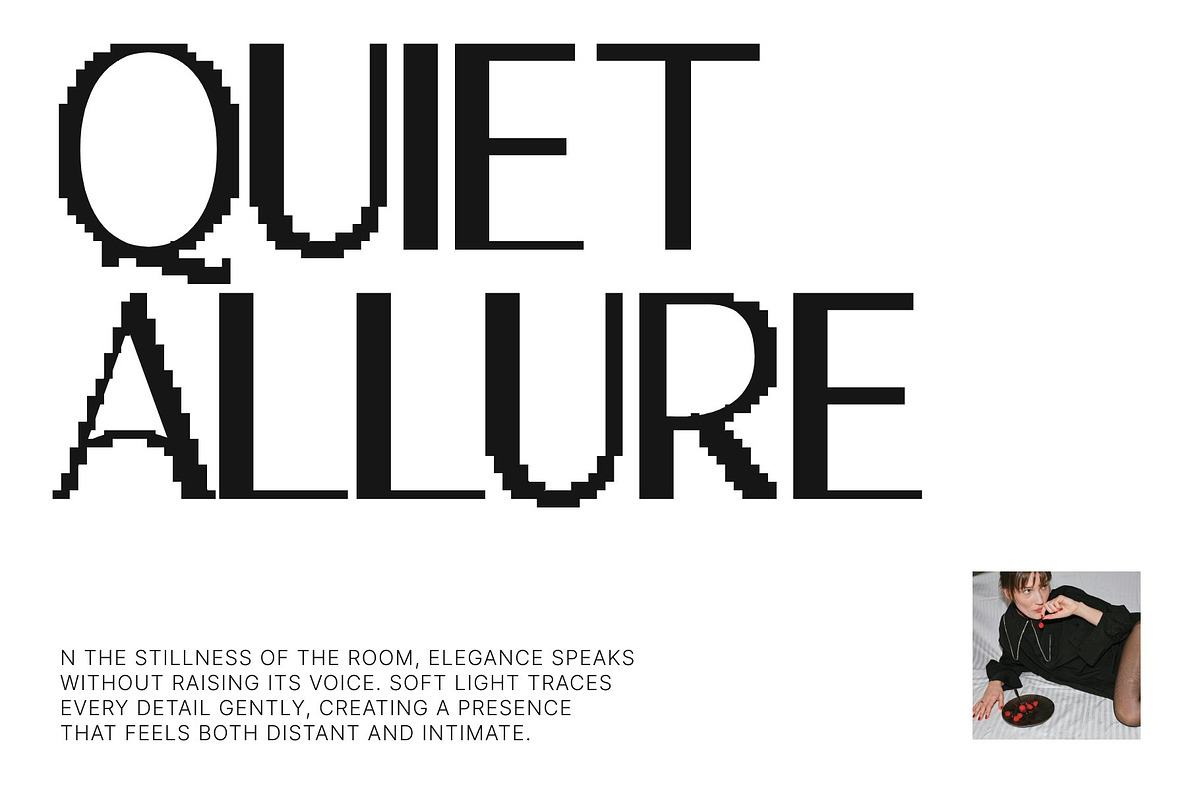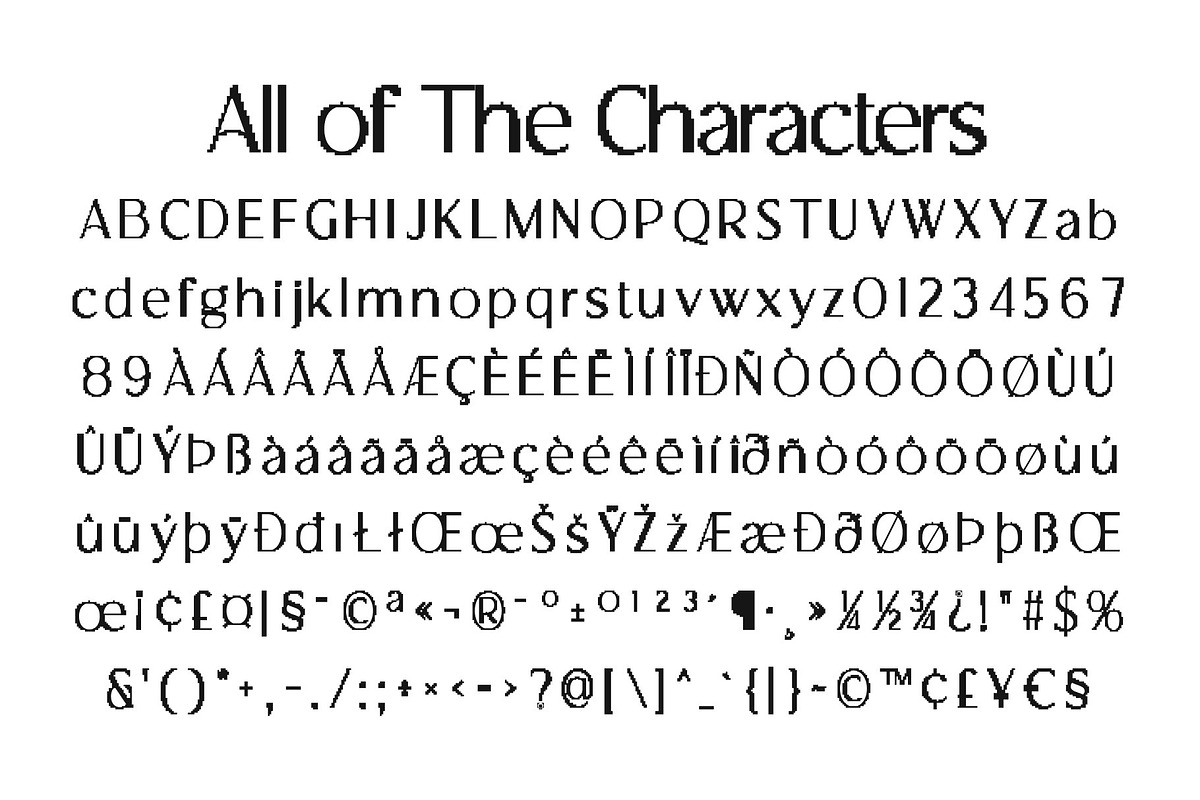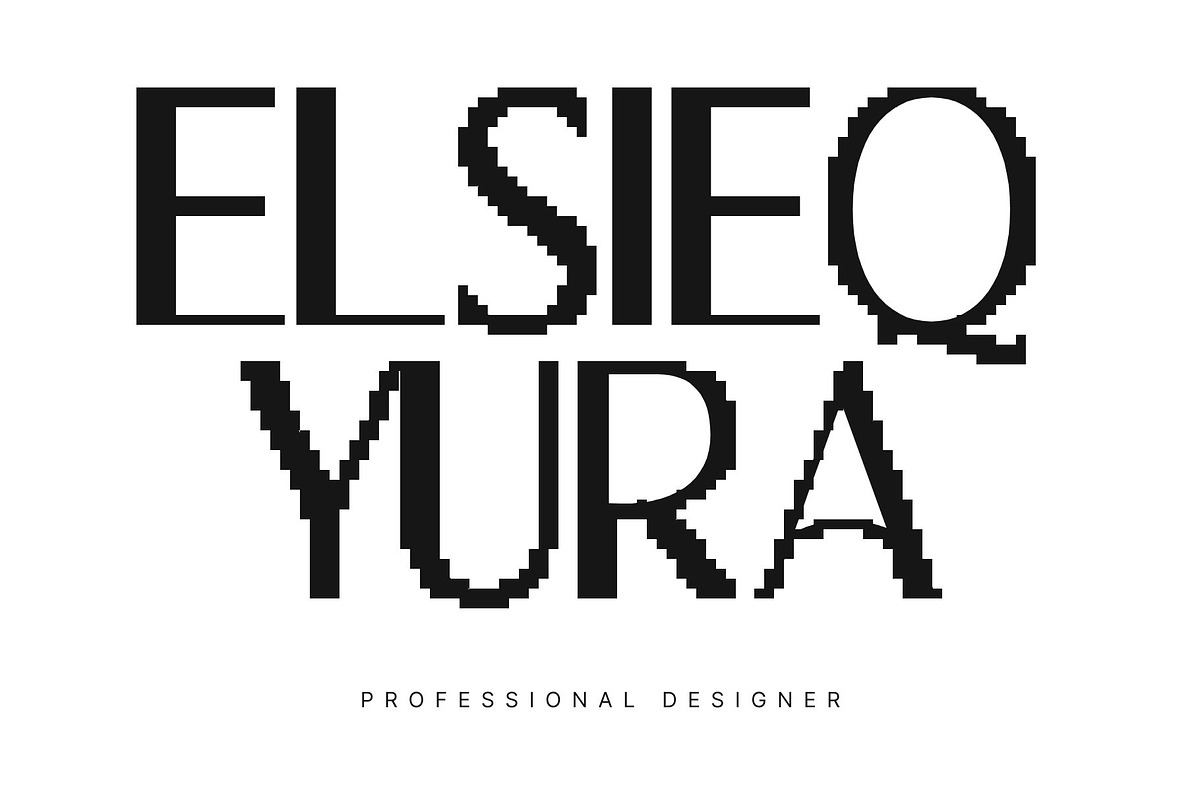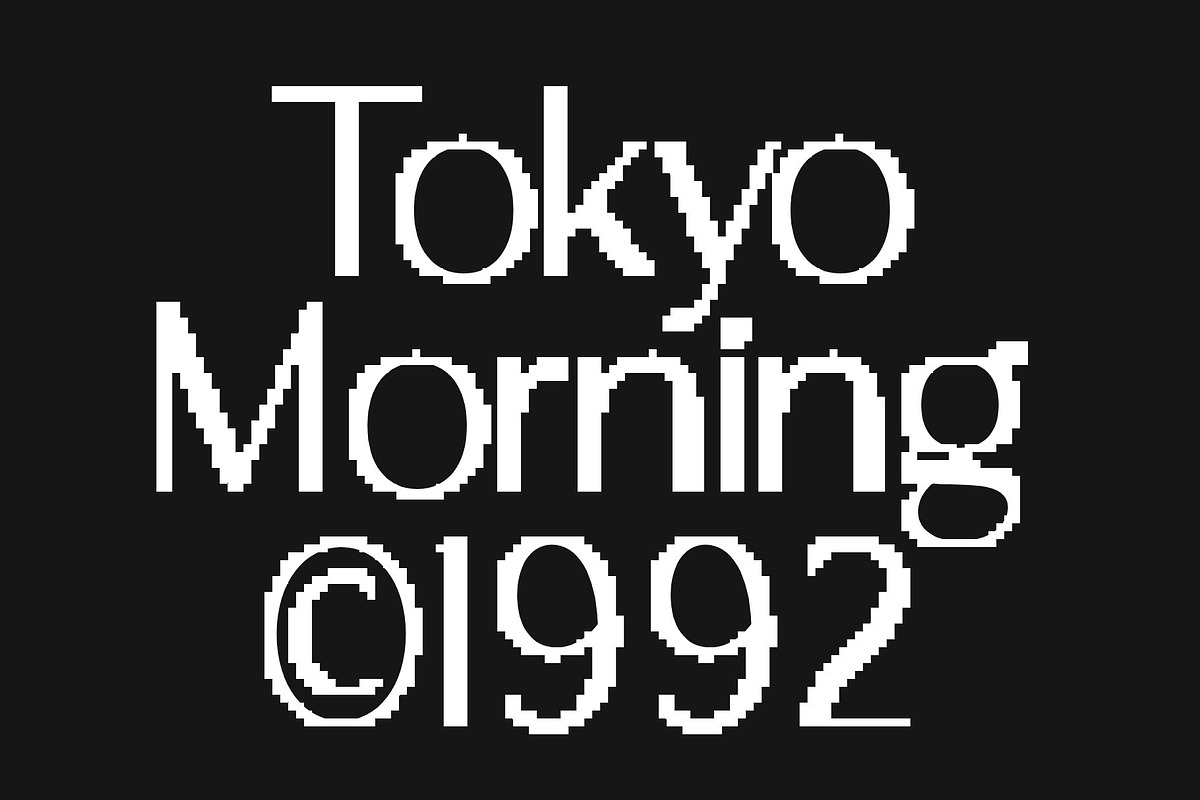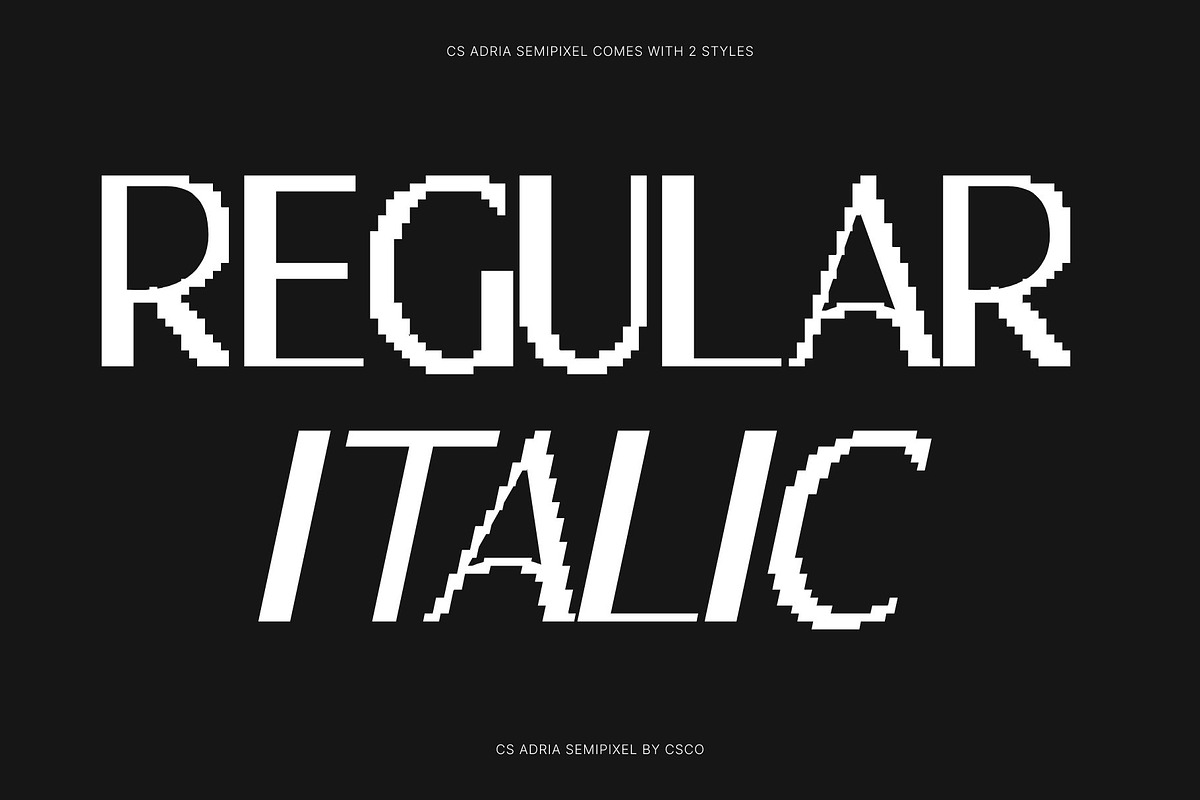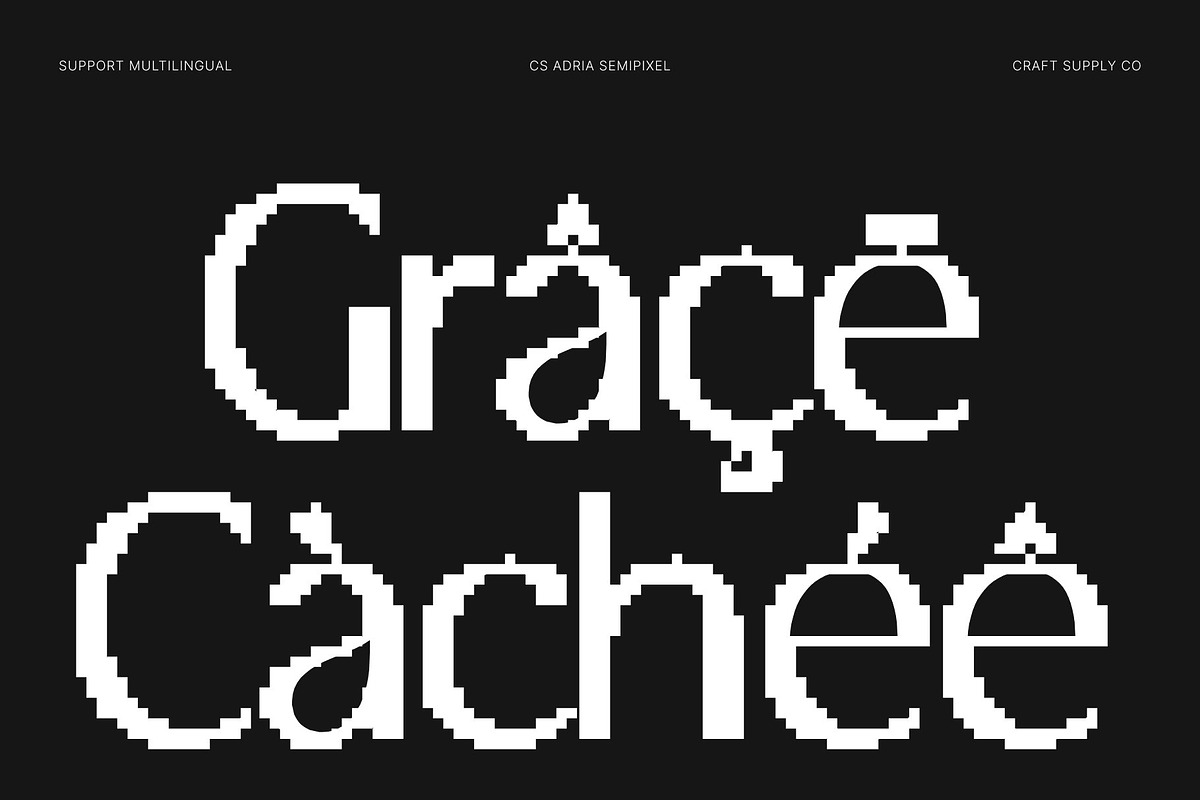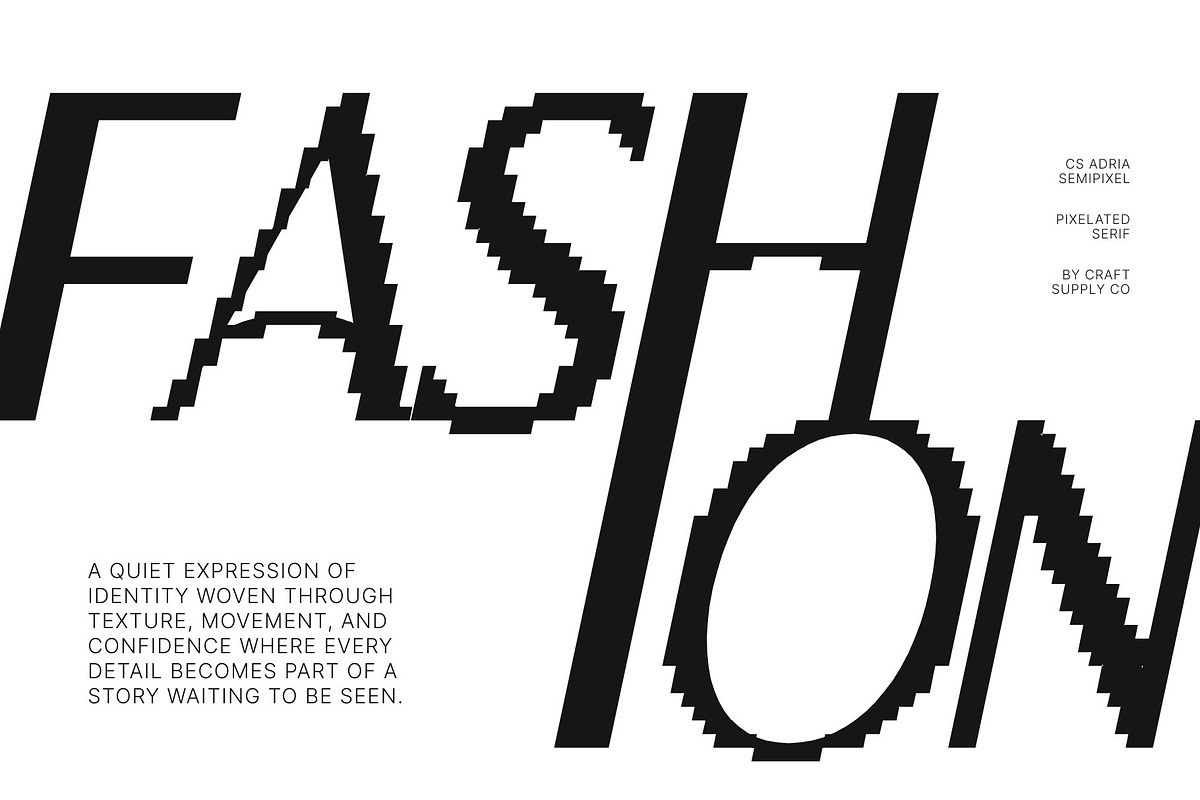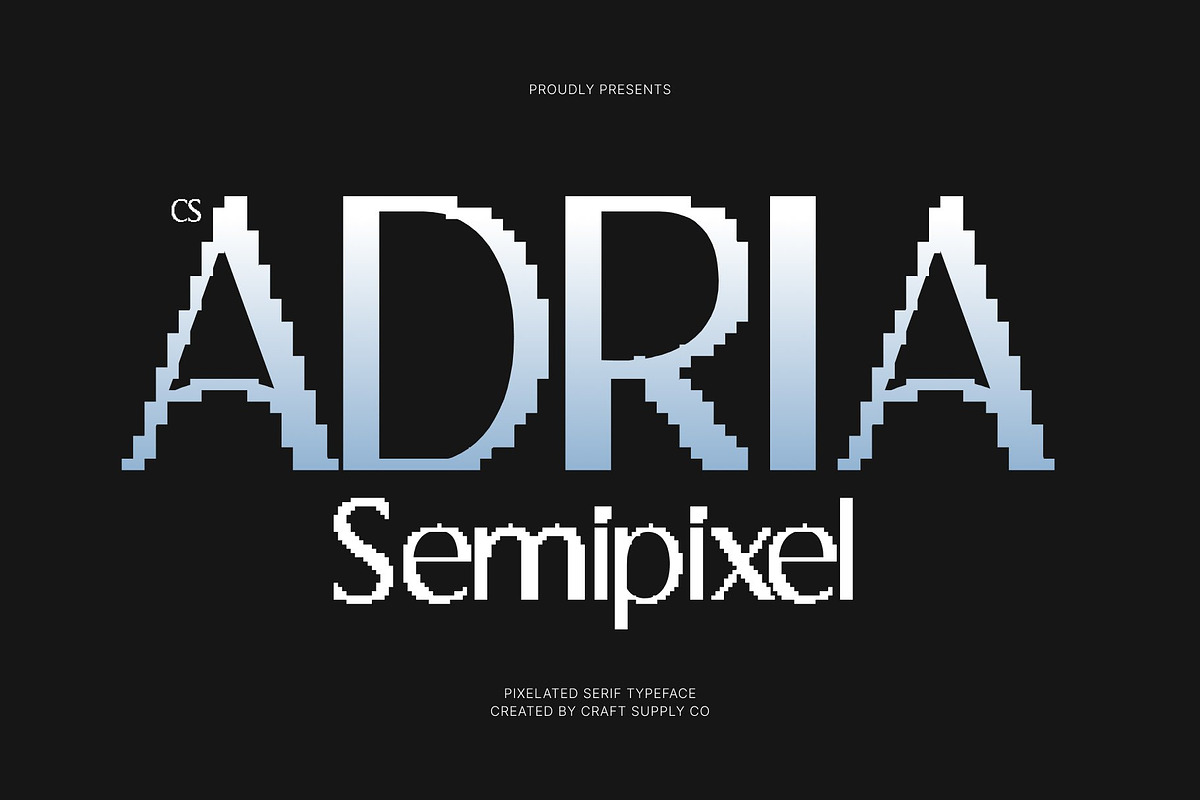
CS Adria Semipixel
CS Adria Semipixel – Modern Sans Serif with Confident Clarity
Modern Sans Serif with Strong Presence This is a modern sans serif font crafted to communicate strength, clarity, and confidence in every composition. Its clean lines and balanced proportions instantly create a professional and contemporary tone that commands attention without feeling overwhelming.
Semi Pixel Detail with Smooth Modern Curves Blending pixel-inspired geometry with refined curves, this font introduces a distinctive semi pixel aesthetic that feels both digital and polished. The subtle square forms add a tech-driven personality, while the smooth contours keep the font approachable and easy to read. This combination creates a futuristic yet friendly appearance that bridges the gap between classic pixel fonts and sleek modern typography.
Precision Structure for Clear Communication Every letterform is carefully engineered to deliver clarity across digital and print environments. Its precise construction ensures crisp readability in large headlines, user interfaces, and editorial layouts. The balanced spacing and clean geometry help maintain visual harmony, allowing designers to create structured compositions that feel sharp, organized, and visually confident.
Perfect for Tech, Gaming, and Modern Branding Designed for versatility, this font excels in UI design, startup branding, gaming visuals, technology logos, digital event posters, and modern websites. Its confident character enhances visual hierarchy while maintaining a polished and dynamic presence.
CS Adria Semipixel Regular
CS Adria Semipixel Italic